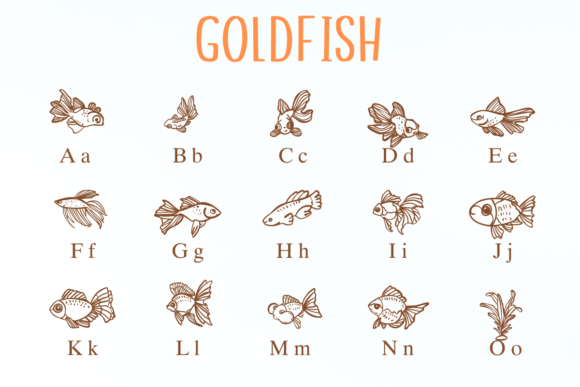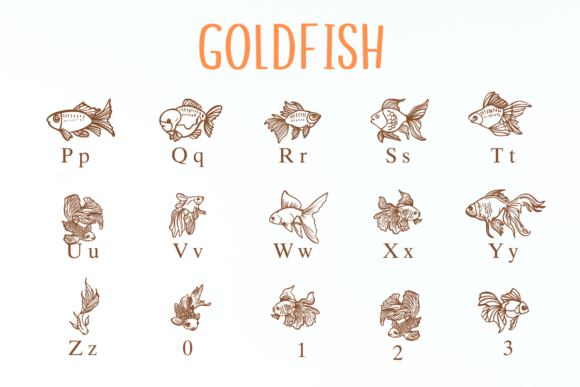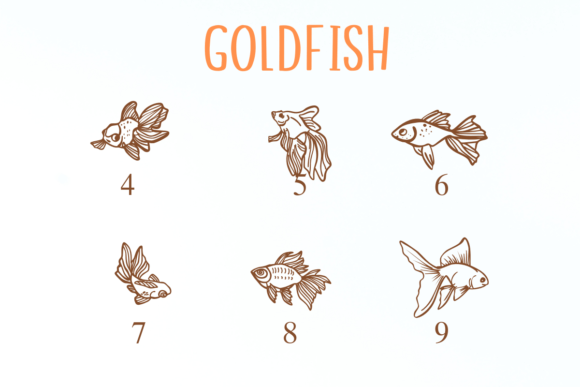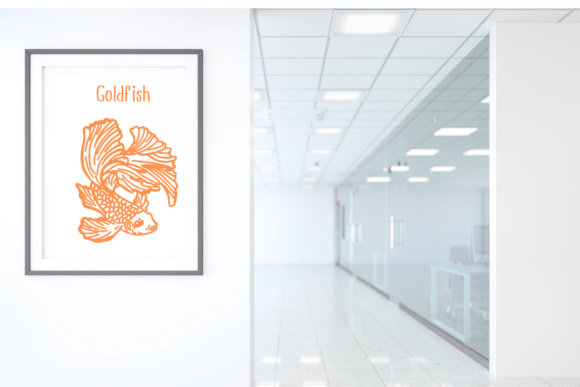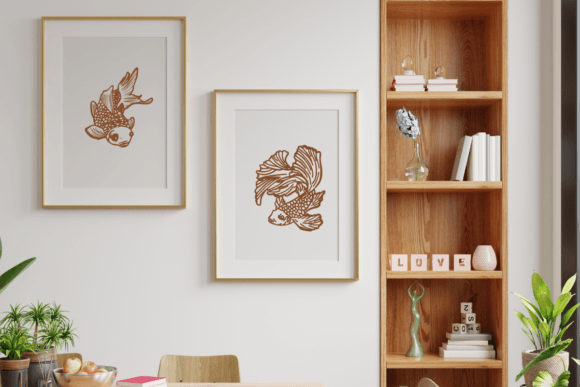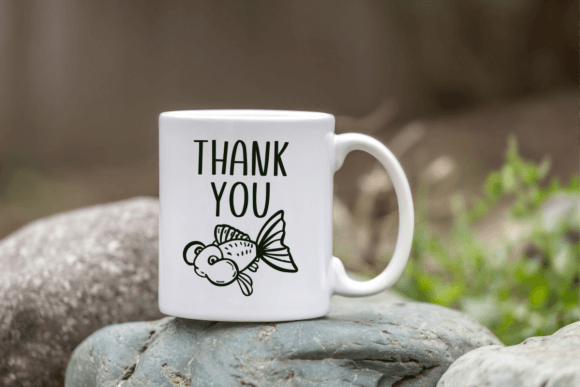
Introduction to Gold Fish Font
As a creative person, you’ve probably found yourself staring at a blank canvas, searching for the perfect design element to bring your idea to life. It’s that moment when inspiration strikes, and you know exactly what you need to make your project stand out – a unique and quirky design element. That’s where the Gold Fish Font comes in, a delightful dingbats font with a sketched theme style that’s sure to add a touch of whimsy to your next creative project.
This charming font is not only free to download but also offers a high-quality design resource that’s perfect for a wide range of creative projects, from wedding invitations to DIY crafts and decorations. With its transparent background, you can easily layer it over other design elements to create a stunning visual effect.
Key Features of Gold Fish Font
- High-quality design: The Gold Fish Font is crafted with attention to detail, making it a valuable resource for creative projects.
- Transparent background: The font features a transparent background, allowing for seamless integration with various design elements.
- Large character set: The font includes a comprehensive character set, including uppercase and lowercase letters, numbers, and punctuation marks.
- High-resolution design: The font is designed at a high resolution, making it suitable for use in various applications, from web design to print materials.
Honest Review: Gold Fish Font
I recently stumbled upon the Gold Fish Font while searching for a unique design resource to enhance my creative project. After exploring the font’s features, I was excited to dive in and see how it could elevate my design.
What works well: ✨ The Gold Fish Font is incredibly versatile and can be used for a wide range of design projects, from logos to graphics. The font’s bold and playful style makes it perfect for adding a touch of whimsy to any creative project. I also appreciate that the font is available as a free download, making it an accessible design resource for designers of all levels.
What doesn’t work so well: ⚠️ One limitation of the Gold Fish Font is that it only comes with a transparent background, which may not be suitable for all design projects. Additionally, the font’s bold style can be overwhelming in certain contexts, so it’s essential to use it thoughtfully and balance it with other design elements.
Overall impression: I’m impressed with the Gold Fish Font’s high quality and versatility. While it has some limitations, I believe it’s a valuable addition to any designer’s toolkit. Whether you’re working on a high-end creative project or a personal design endeavor, the Gold Fish Font is definitely worth exploring.
- High-quality font suitable for a variety of design projects
- Transparent background may not be suitable for all projects
- Font’s bold style can be overwhelming in certain contexts
Designing with Gold Fish Font
The Gold Fish Font is a high-quality, free download design resource perfect for adding a touch of whimsy to your creative project. With its transparent background, you can easily layer it over other design elements.
Tips for Getting the Most Out of Gold Fish Font
For the best results, use Gold Fish Font in conjunction with other design elements to create a cohesive and visually appealing design. Experiment with different font sizes, colors, and layering techniques to find the perfect look for your project.
Common Use Cases for Gold Fish Font
Gold Fish Font is perfect for use in children’s book illustrations, nursery decor, and other whimsical design projects. Its playful and eye-catching design makes it a great choice for grabbing attention and adding visual interest to your design.